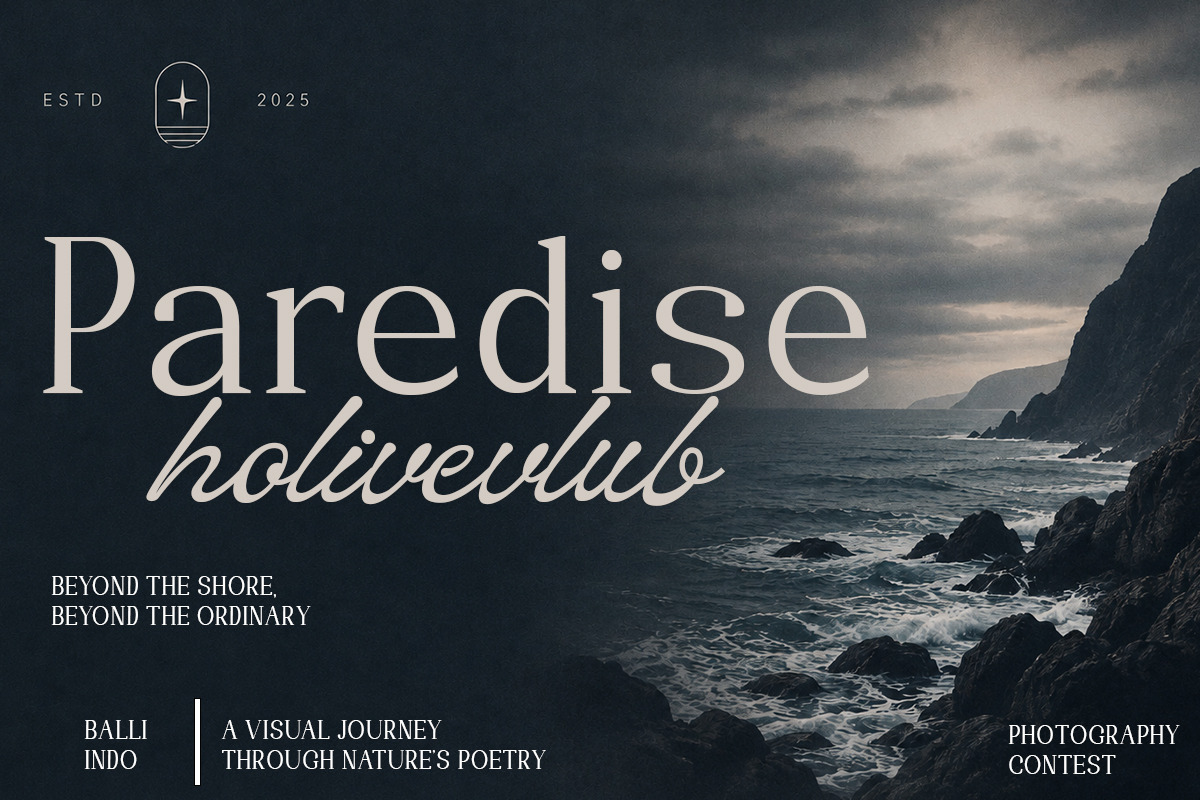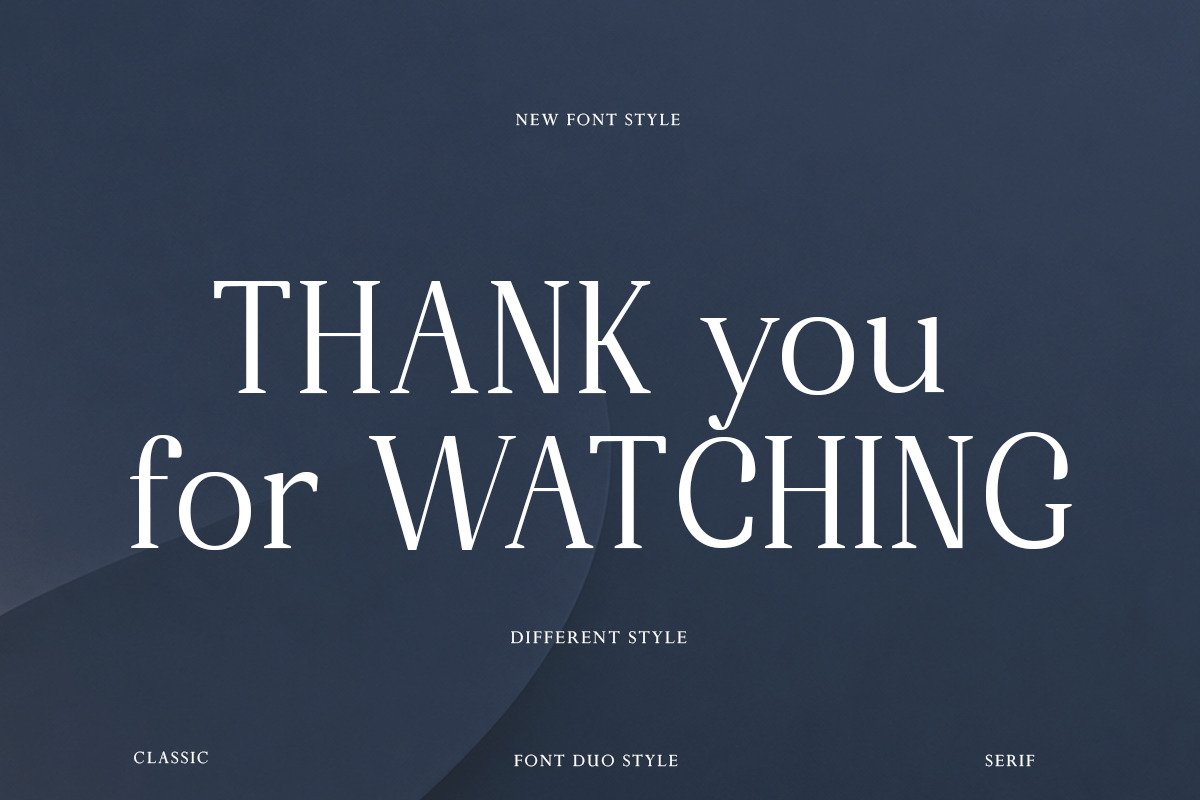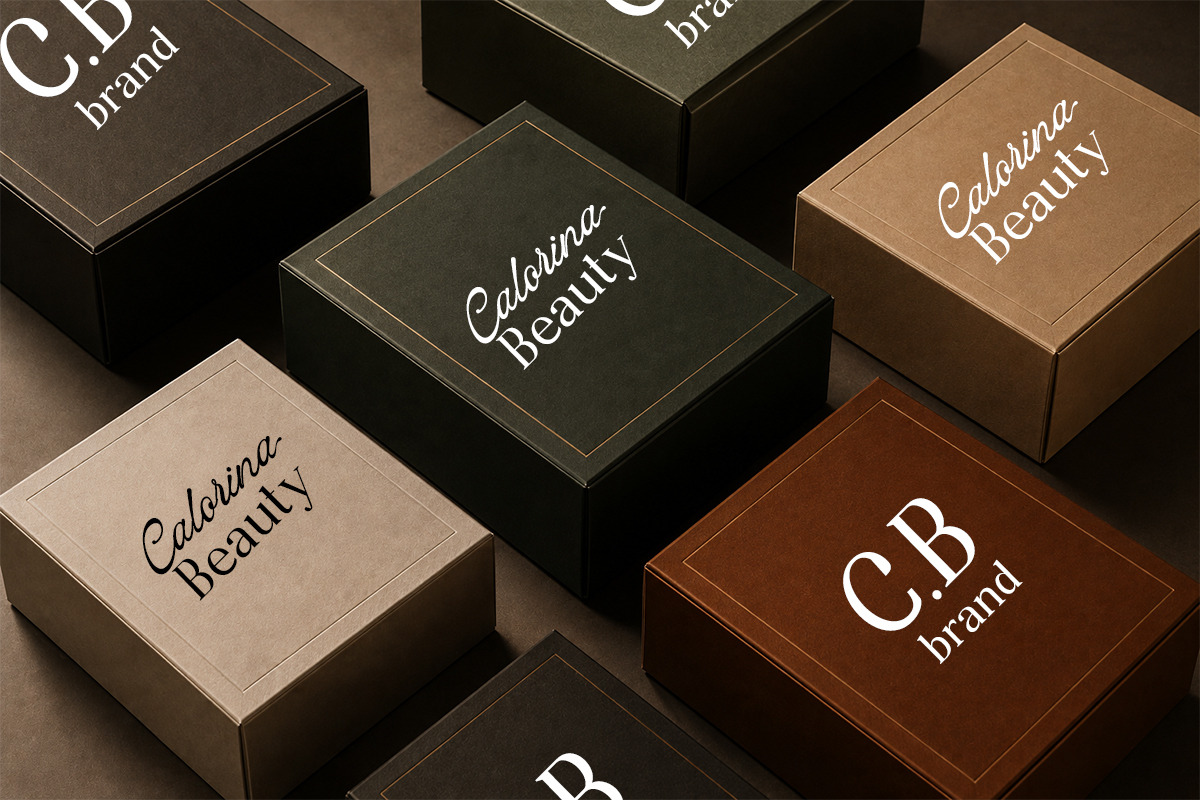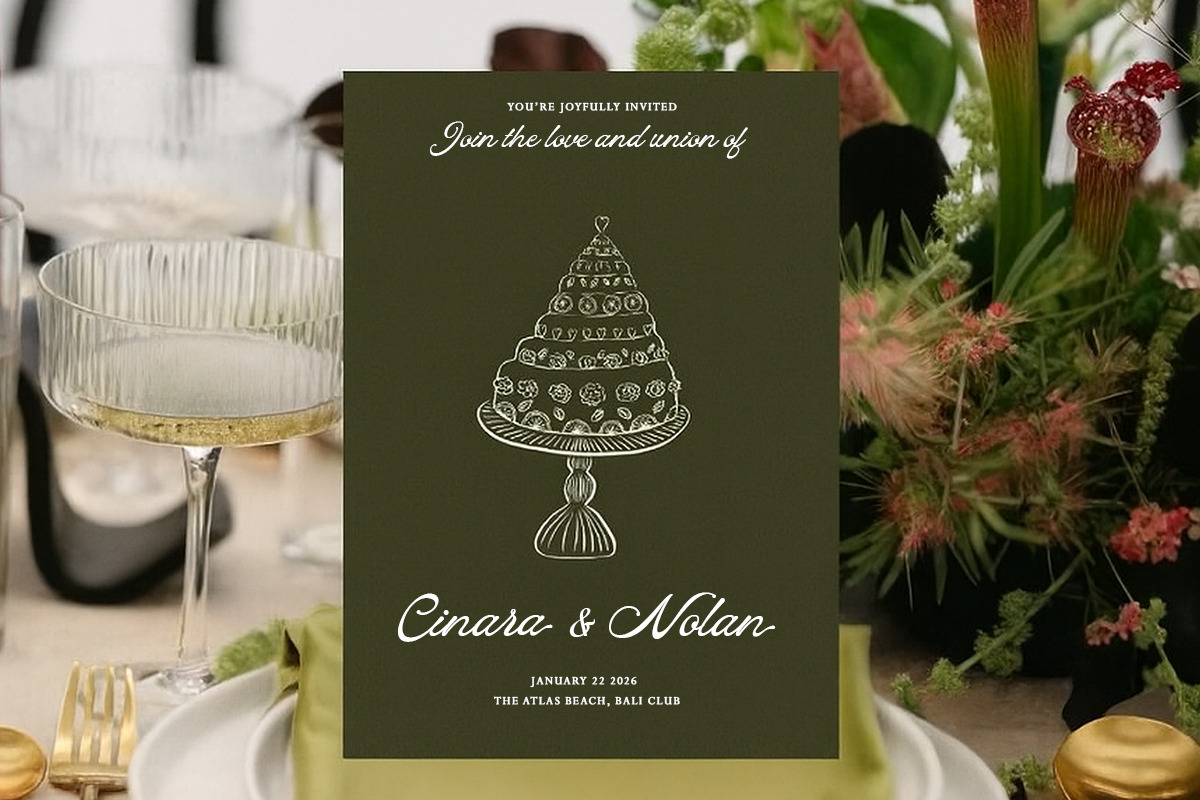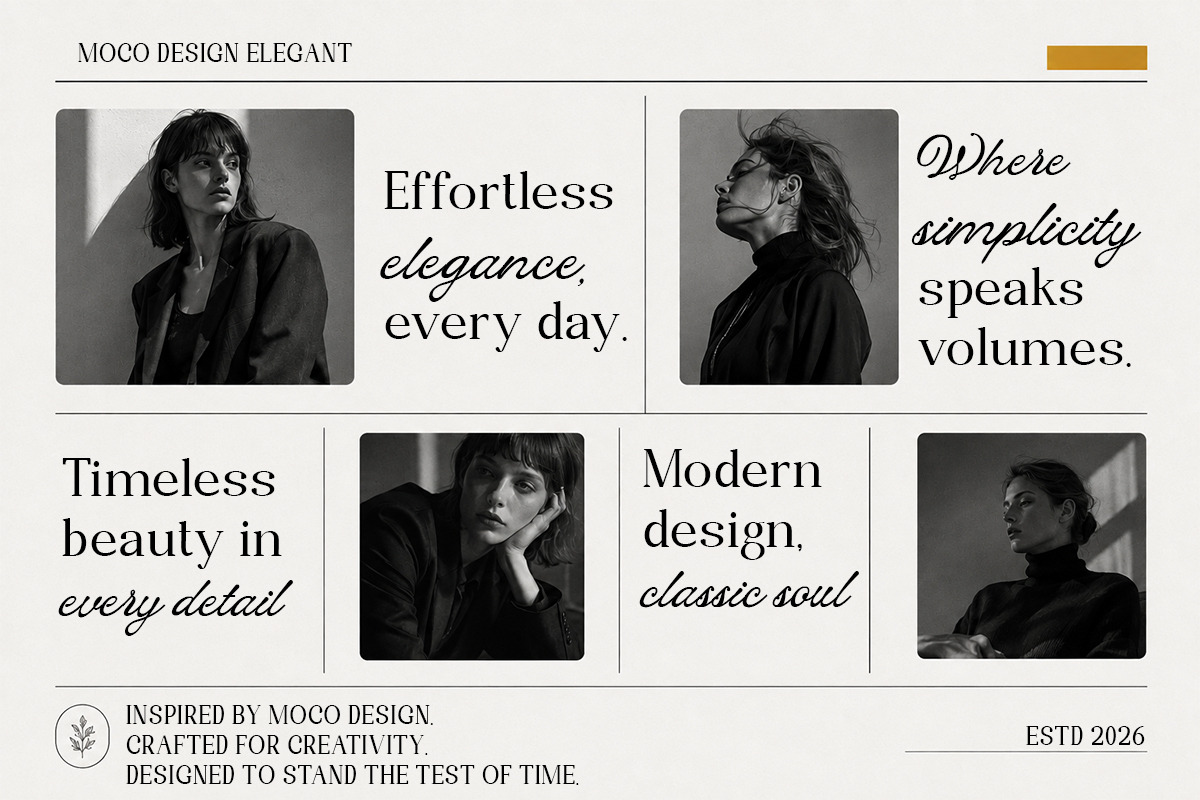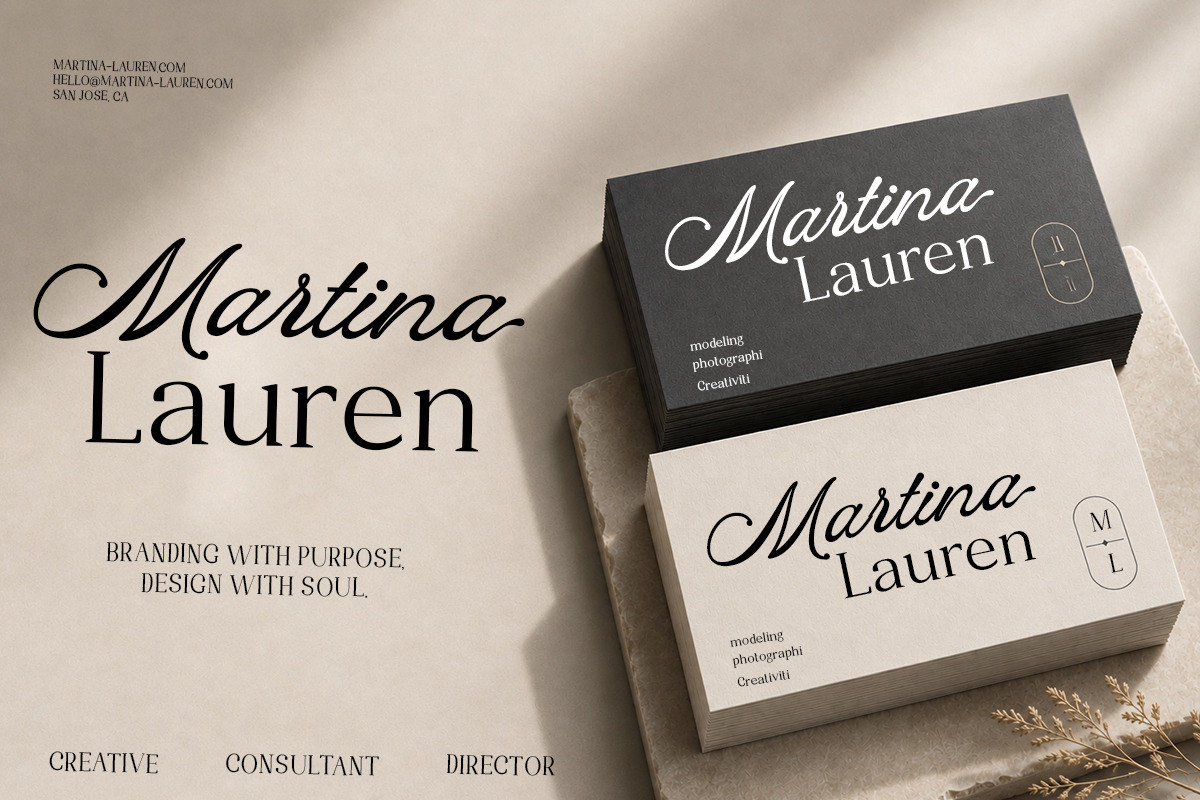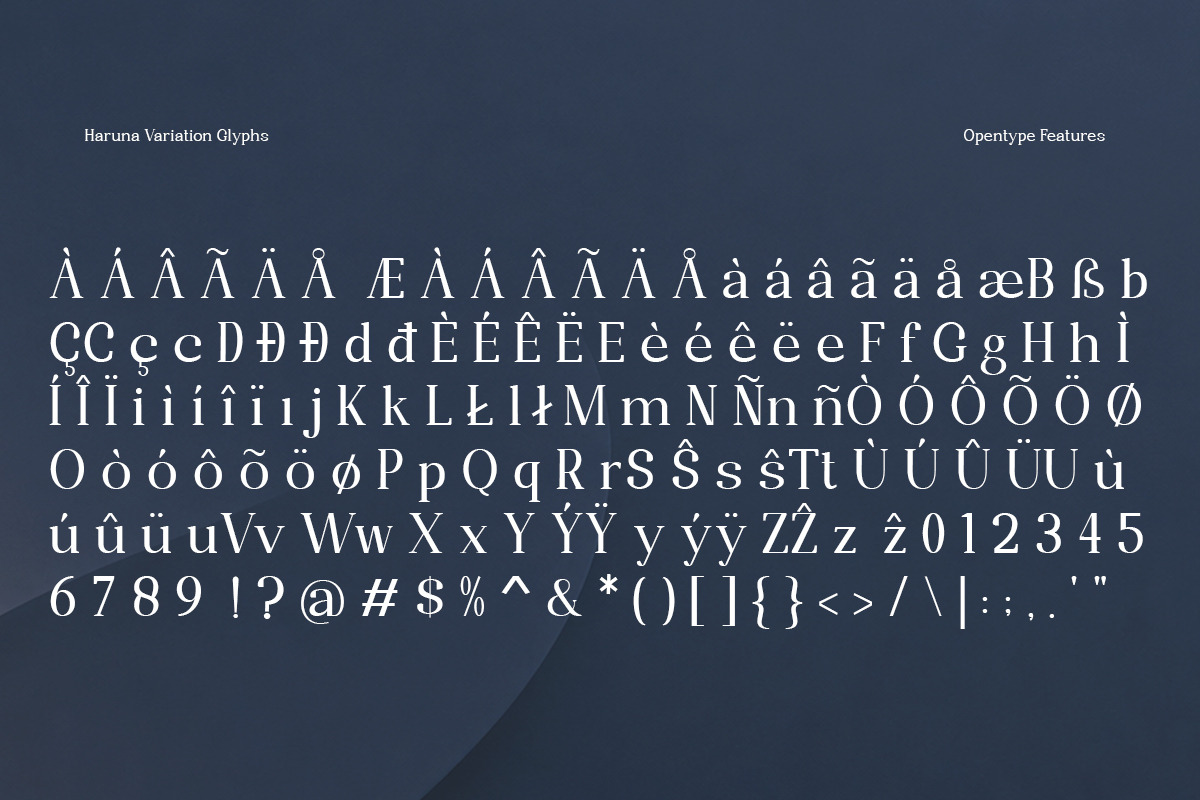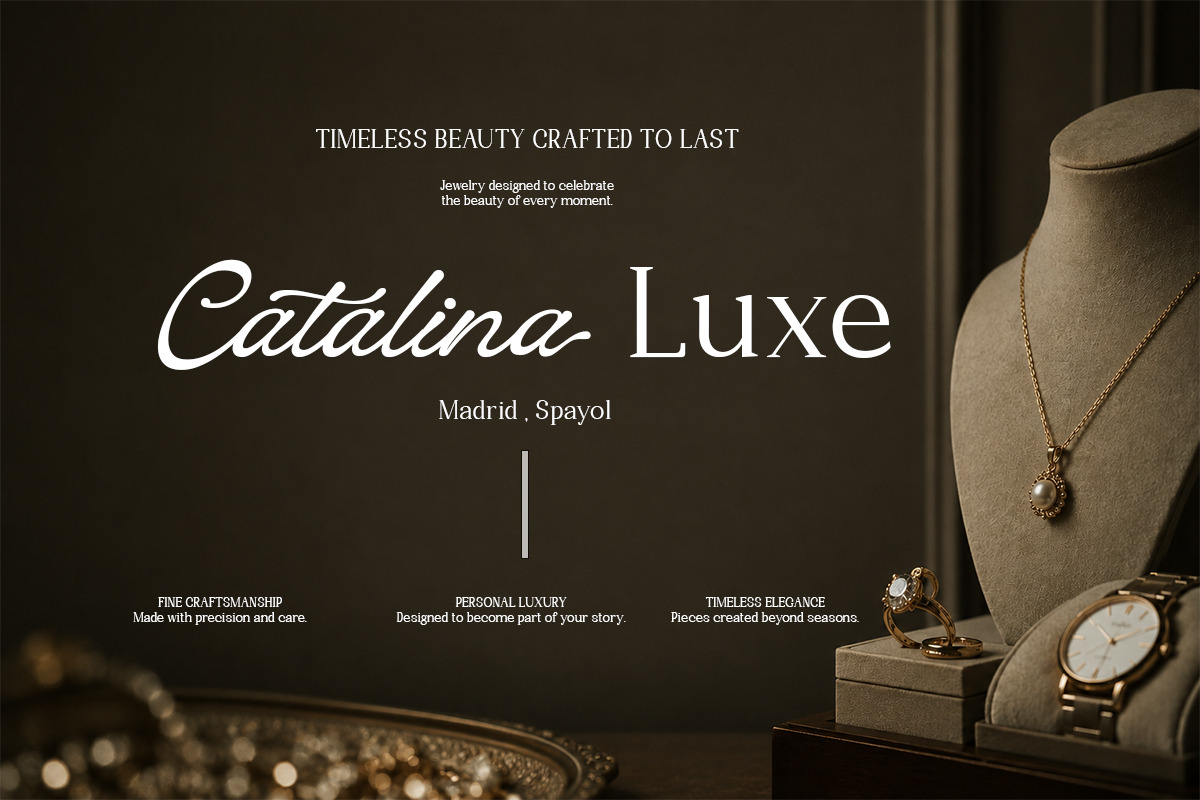
Haruna Variation
Haruna Variation — Elegant Font Duo
Haruna Variation is an elegant and sophisticated font duo that beautifully combines a timeless classic serif with a graceful, flowing script. Designed to create a luxurious and feminine impression, this versatile typeface is perfect for branding, fashion, beauty, wedding invitations, editorial designs, logos, packaging, social media, and other stylish creative projects.
The classic serif brings a refined and sophisticated character, while the expressive script adds a touch of elegance, personality, and romance. Together, they create a harmonious font combination that feels both modern and timeless.
Haruna Variation is the perfect choice for designers looking to add a premium, elegant, and distinctive touch to their work.